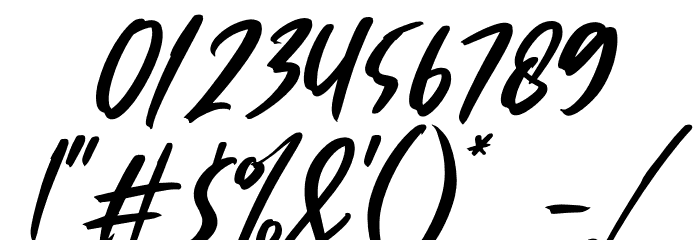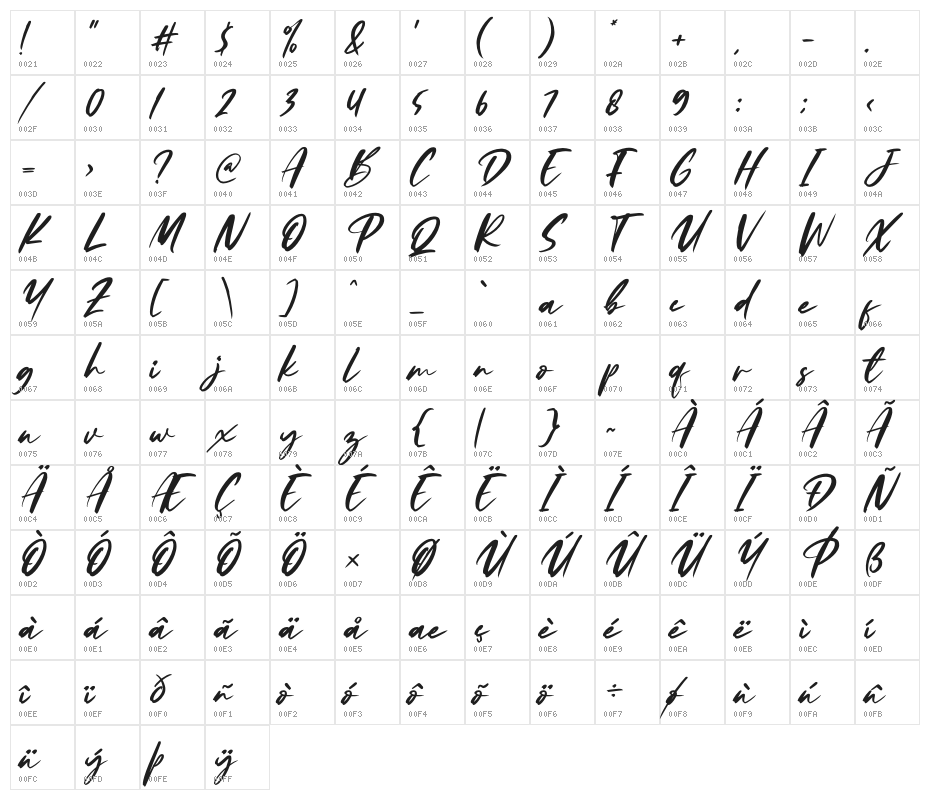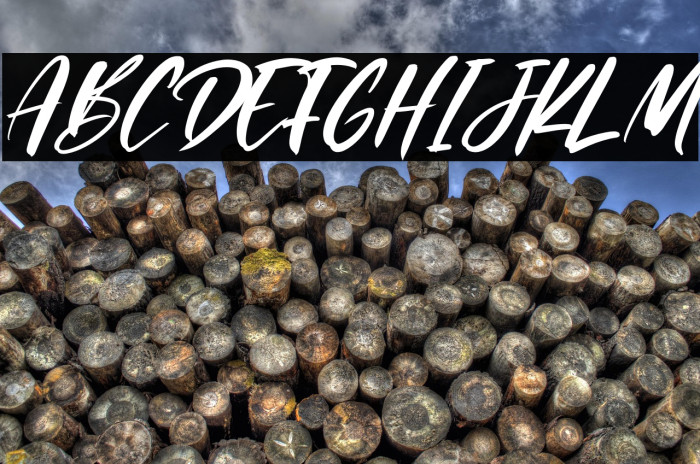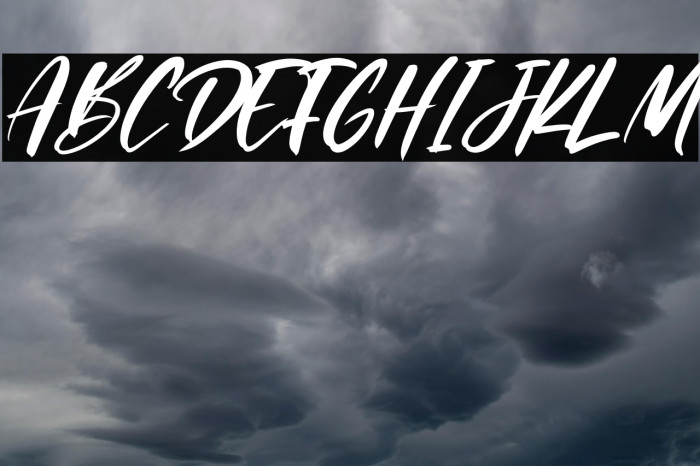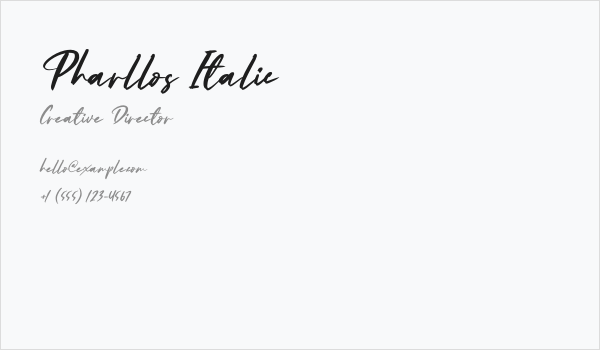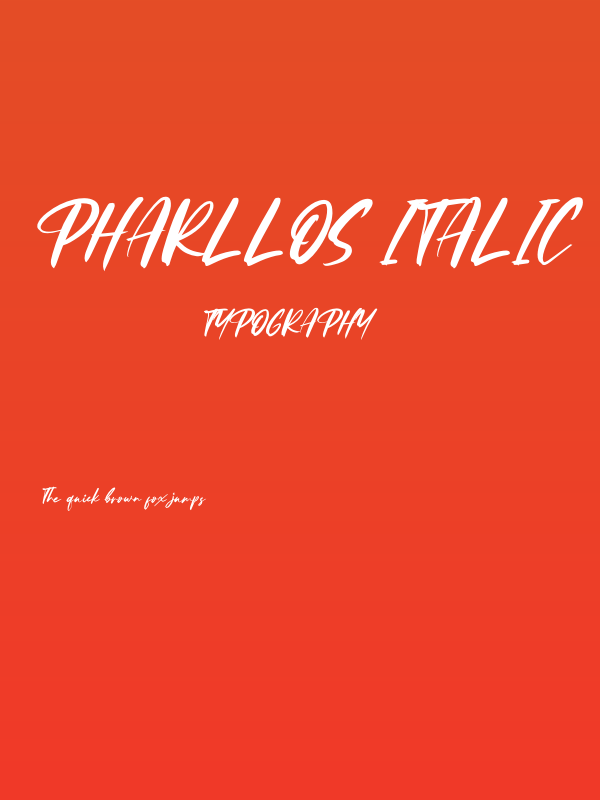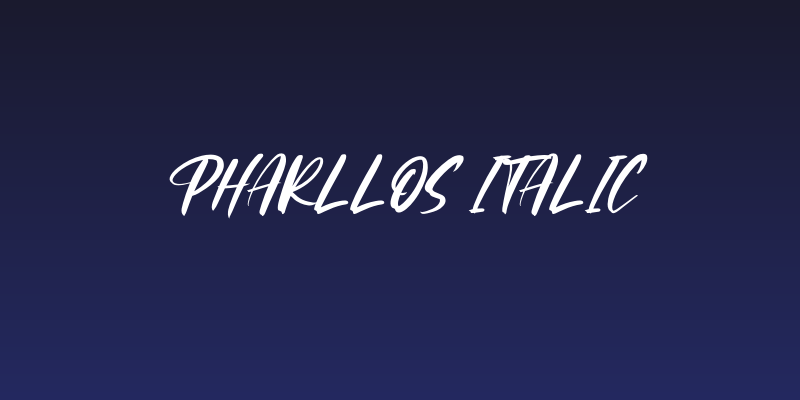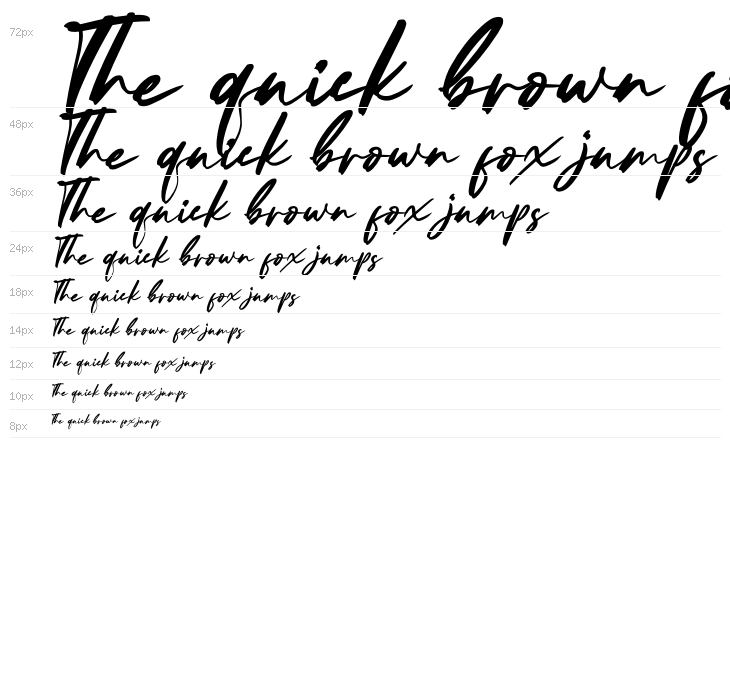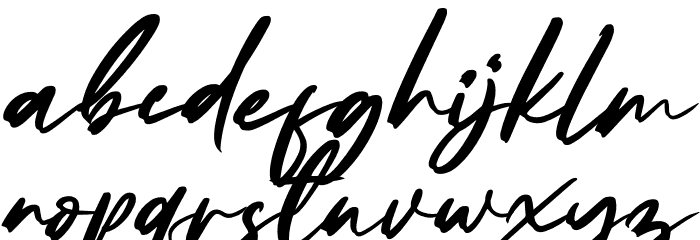
Pharllos Italic Font
Pharllos Italic Description
This font exudes a dynamic and expressive style, characterized by its bold, flowing strokes and cursive nature. The letters are interconnected with a fluid motion, giving it a handwritten appearance. The uppercase letters are particularly striking with their dramatic flourishes, while the lowercase letters maintain a consistent rhythm and flow. The numerals and special characters are designed to complement the overall aesthetic, maintaining the same bold and cursive style. This font is well-suited for projects that require a personal touch or a sense of elegance and creativity.
| Proposed Projects | Ideal for branding, invitations, greeting cards, and artistic projects that require a personal and elegant touch. |